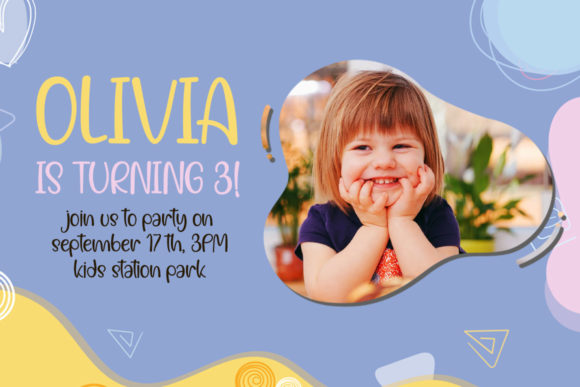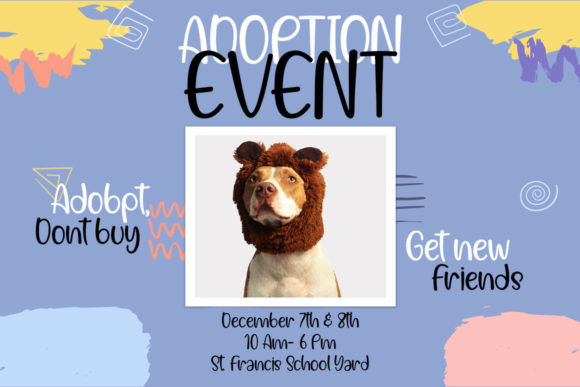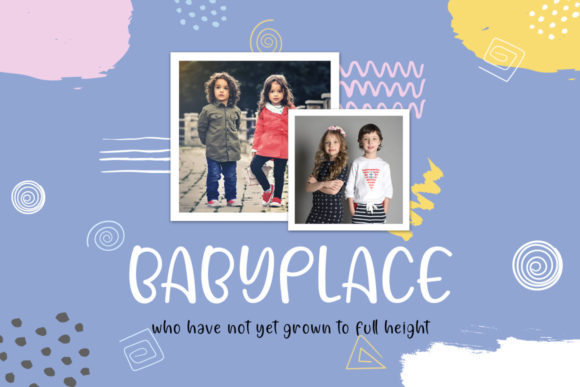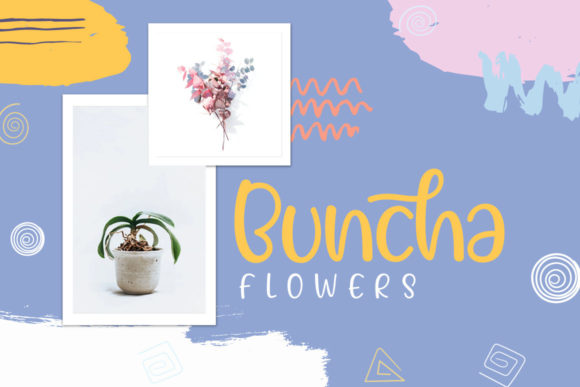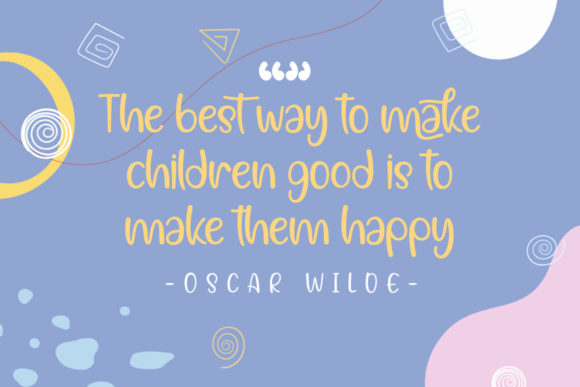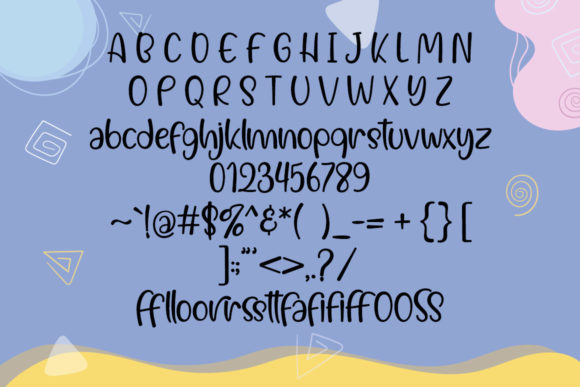
Introducing Blue Grapes Font: The Perfect Choice for Fun and Playful Designs
Are you looking for a font that embodies playfulness and authenticity? Look no further than Blue Grapes Font! This fun and jolly display font is perfect for any children activity or school project that requires a charming and eye-catching touch. In this article, we’ll dive into the world of Blue Grapes Font and explore its features, benefits, and uses.
What is Blue Grapes Font?
Blue Grapes Font is a display font designed to bring a sense of fun and playfulness to any design project. Its unique and charming style makes it perfect for children’s activities, school projects, and any other creative endeavor that requires a lighthearted touch. The font’s design is inspired by the sweetness and simplicity of blue grapes, making it a delightful addition to any design.
Key Features of Blue Grapes Font
- Playful and Authentic: Blue Grapes Font embodies the spirit of playfulness and authenticity, making it perfect for designs that require a fun and carefree touch.
- Charming Display Font: This font is designed to make a statement, with its bold and eye-catching style that’s sure to grab attention.
- Perfect for Children: Blue Grapes Font is ideal for children’s activities, such as coloring books, activity sheets, and educational materials.
- Easy to Read: Despite its playful style, Blue Grapes Font is easy to read, making it perfect for designs that require a clear and legible font.
Benefits of Using Blue Grapes Font
So why choose Blue Grapes Font for your design project? Here are just a few benefits of using this charming font:
- Adds a Touch of Whimsy: Blue Grapes Font adds a touch of whimsy and playfulness to any design, making it perfect for projects that require a lighthearted touch.
- Perfect for Branding: This font is ideal for branding projects that require a fun and youthful vibe, such as children’s products or educational services.
- Easy to Pair: Blue Grapes Font pairs well with a variety of other fonts, making it easy to create a cohesive design.
Uses for Blue Grapes Font
So what can you use Blue Grapes Font for? Here are just a few ideas to get you started:
- Children’s Activities: Use Blue Grapes Font to create fun and engaging children’s activities, such as coloring books, activity sheets, and educational materials.
- School Projects: This font is perfect for school projects that require a playful and creative touch, such as posters, presentations, and reports.
- Branding and Marketing: Use Blue Grapes Font to create fun and youthful branding and marketing materials, such as logos, business cards, and brochures.
- Crafting and DIY: This font is ideal for crafting and DIY projects, such as scrapbooking, card making, and paper crafting.
Tips for Using Blue Grapes Font
Here are a few tips for using Blue Grapes Font in your design projects:
- Use it Sparingly: Blue Grapes Font is a bold and eye-catching font, so use it sparingly to avoid overwhelming your design.
- Pair it with Other Fonts: Experiment with pairing Blue Grapes Font with other fonts to create a unique and cohesive design.
- Experiment with Colors: Blue Grapes Font looks great in a variety of colors, so don’t be afraid to experiment and find the perfect hue for your design.
| Font Name | Blue Grapes Font |
| Author | Nico Muslib |
In conclusion, Blue Grapes Font is a fun, jolly, and incredibly charming display font that’s perfect for any children activity or school project. Its playful and authentic style makes it a great choice for designs that require a lighthearted touch. With its ease of use, versatility, and charm, Blue Grapes Font is sure to become a favorite among designers and crafters alike.